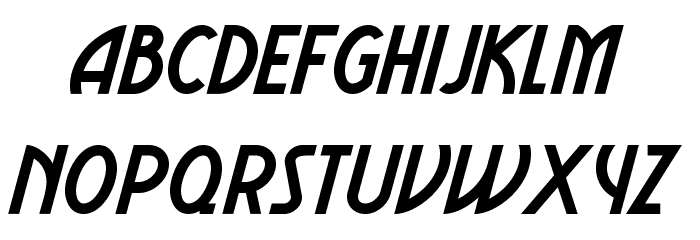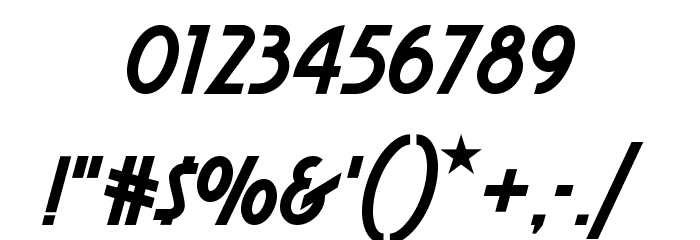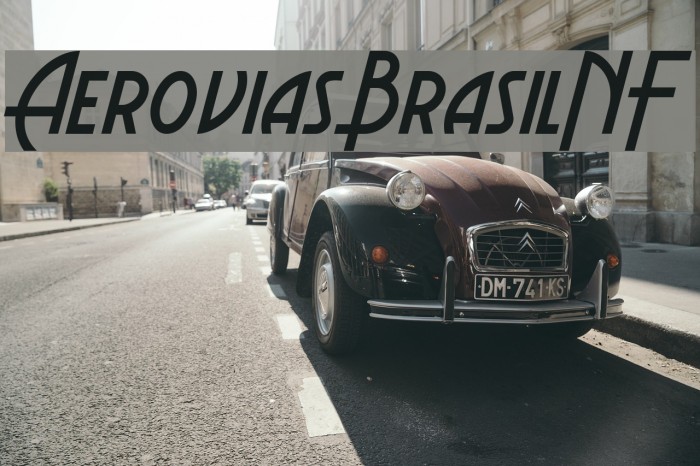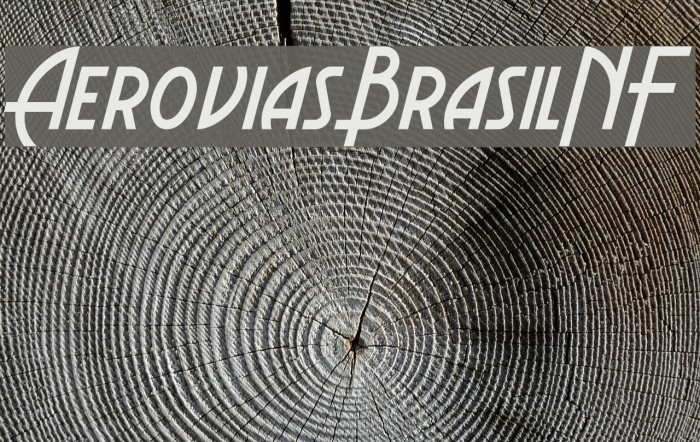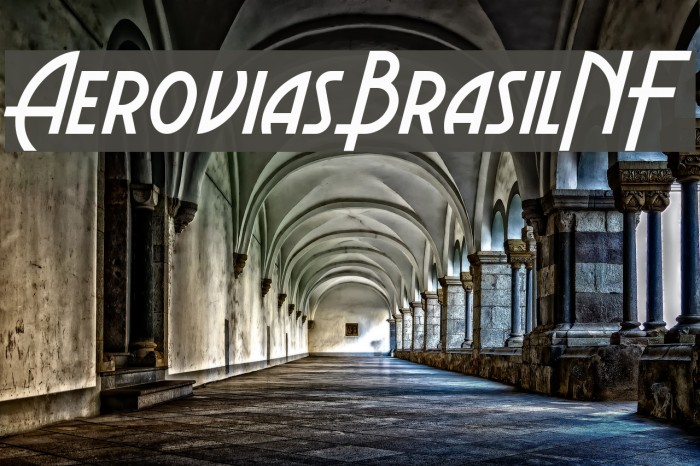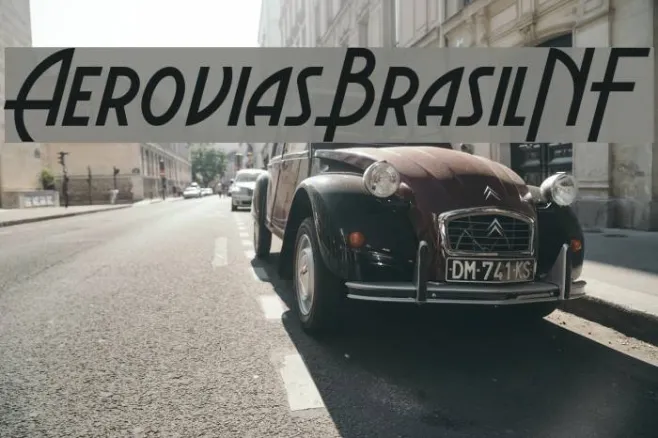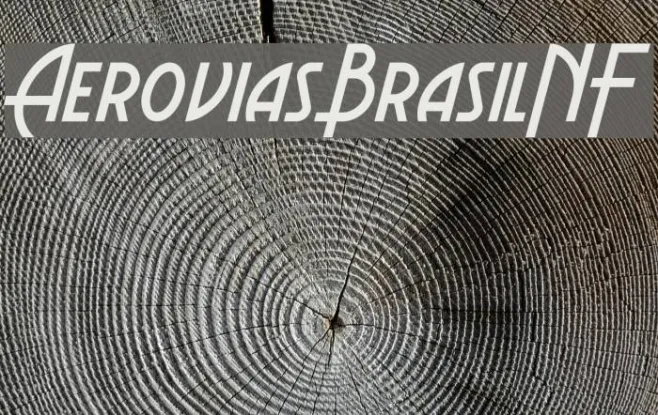
AeroviasBrasilNF Font
This font features a dynamic and energetic style with a forward-leaning slant that conveys a sense of movement and speed. The characters are bold and slightly condensed, with sharp angles and clean lines that give it a modern and sleek appearance. The uppercase letters are particularly striking, with a distinctive flair that makes them stand out. The numerals and special characters are consistent with the overall design, maintaining the same angular and bold characteristics. This font is well-suited for projects that require a sense of urgency or modernity, such as branding for technology companies or sports teams.
A dynamic, forward-leaning font with bold, angular characters.
- Proposed Projects: Ideal for branding, sports team logos, technology company advertising, and dynamic headlines.